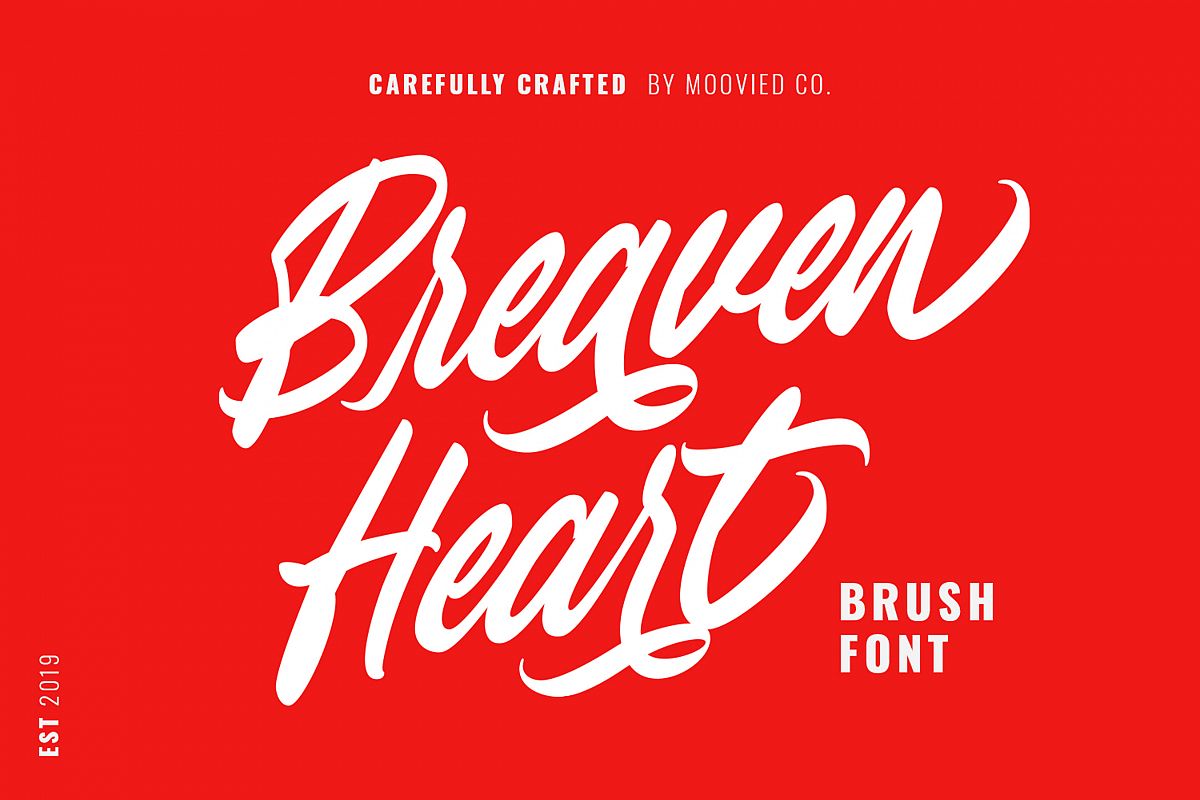
Bravenheart Script
Bravenheart Script is carefully script typeface with stylist style, clean, and style a script handlettering style. Ideal for branding, logos, handwriting quotes, product packaging, headers, posters, merchandise, social media Books / Cover titles, special events, etc.